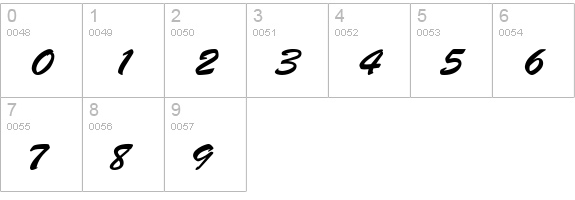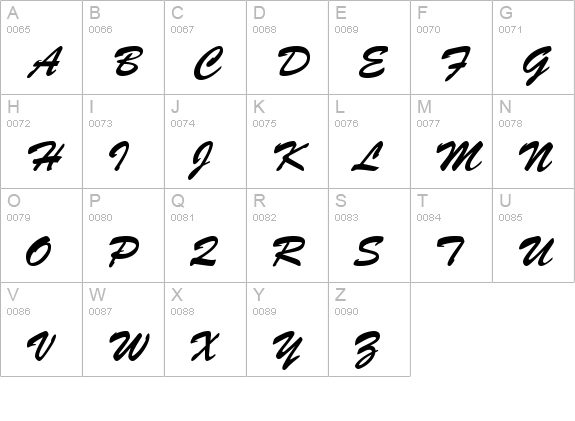
Banff Font Details
Banff font is a stunning and versatile typeface that exudes elegance and modernity. With its sleek lines and sophisticated design, Banff is the perfect choice for a wide range of design projects, from branding to editorial design. This font strikes the perfect balance between classic and contemporary styles, making it suitable for both traditional and modern applications. What sets Banff font apart is its unique combination of readability and character, making it a standout choice for any design project. Whether you're creating a logo, poster, website, or any other design piece, Banff font will elevate your work and give it a polished and professional look. The best part about Banff font is that it is completely free to download at FontsMarket.com. This means that you can access this premium font without any cost, allowing you to bring your creative visions to life without breaking the bank. So why wait? Download Banff font today and take your designs to the next level!